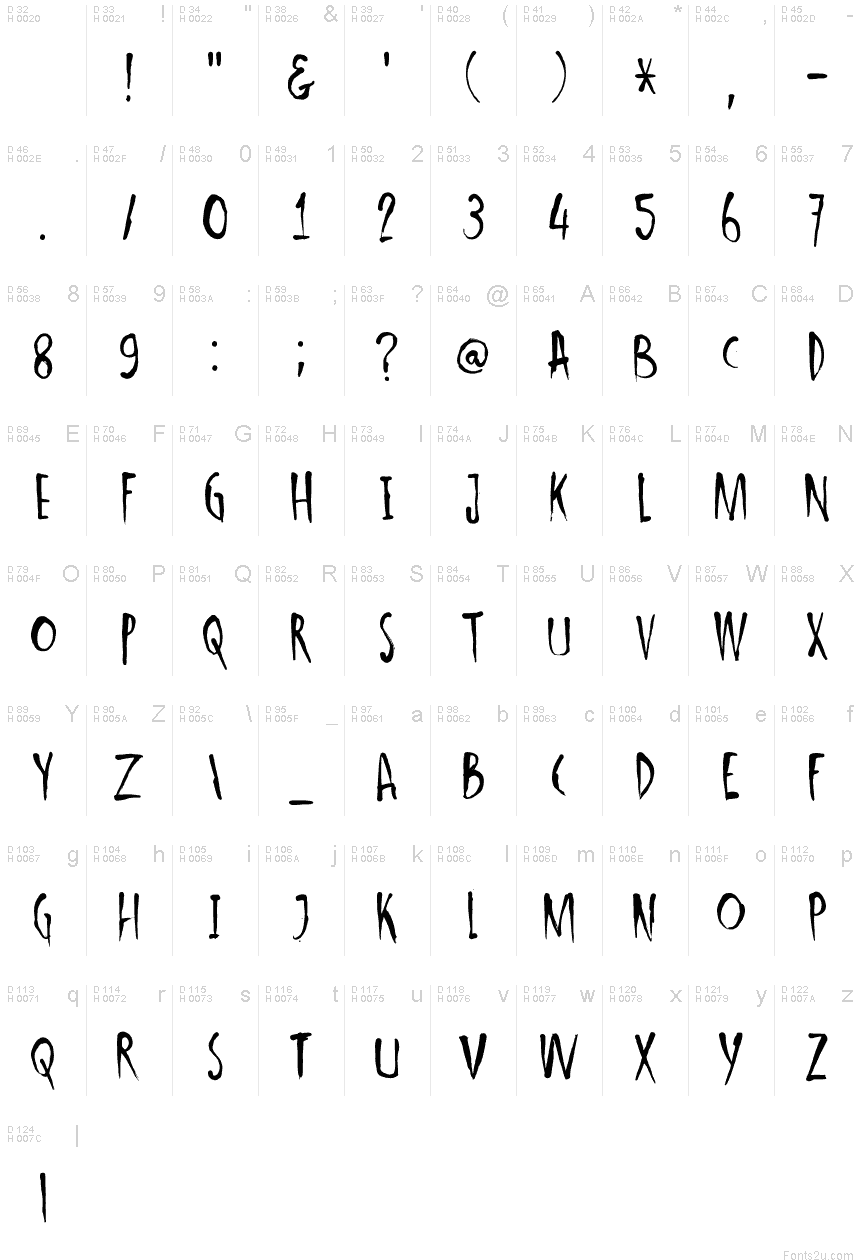
DK Ishtar by David Kerkhoff is a free scary display font with towering, uneven letters and raw inked edges. Its narrow forms bend and wobble as if quickly painted, with sharp tapers and stray marks adding a nervous handmade quality.
It can turn a horror title into part of the scene rather than neutral lettering. The same agitated shapes suit haunted event posters, independent music artwork, and Halloween merchandise. Irregular strokes link them to scratches and shadowy imagery.
DK Ishtar